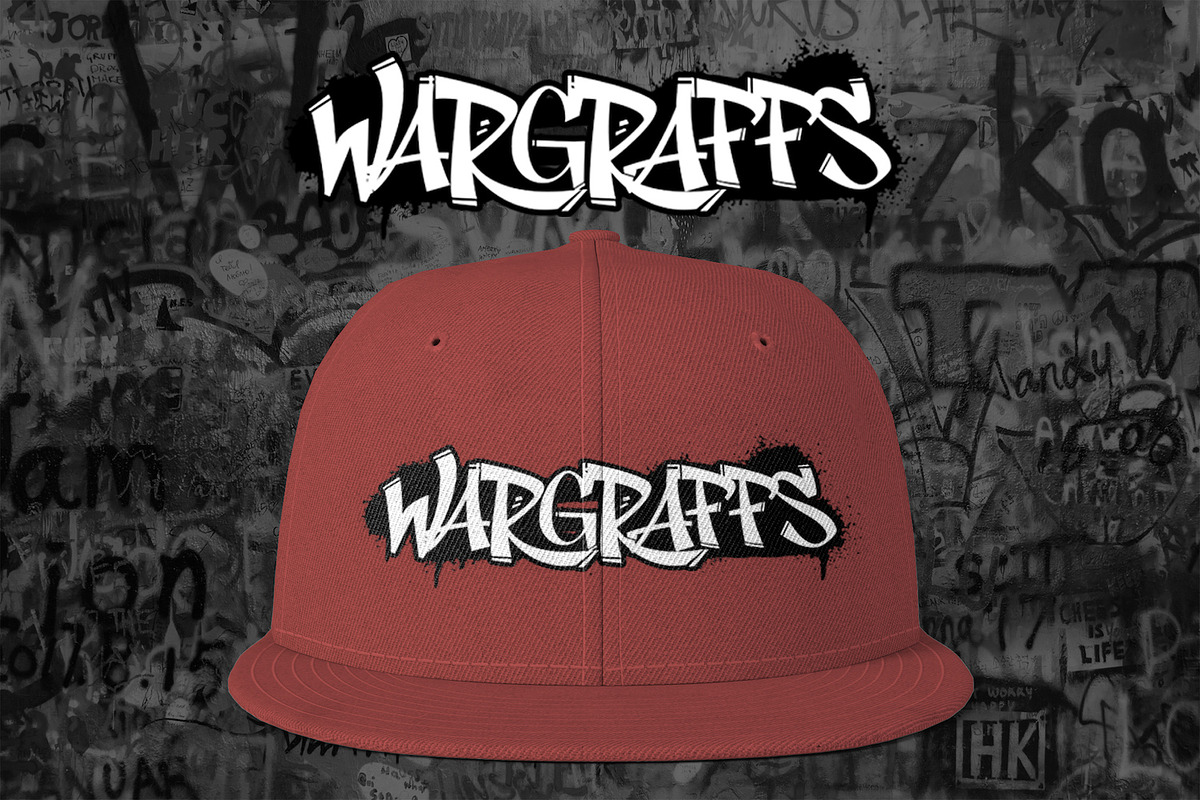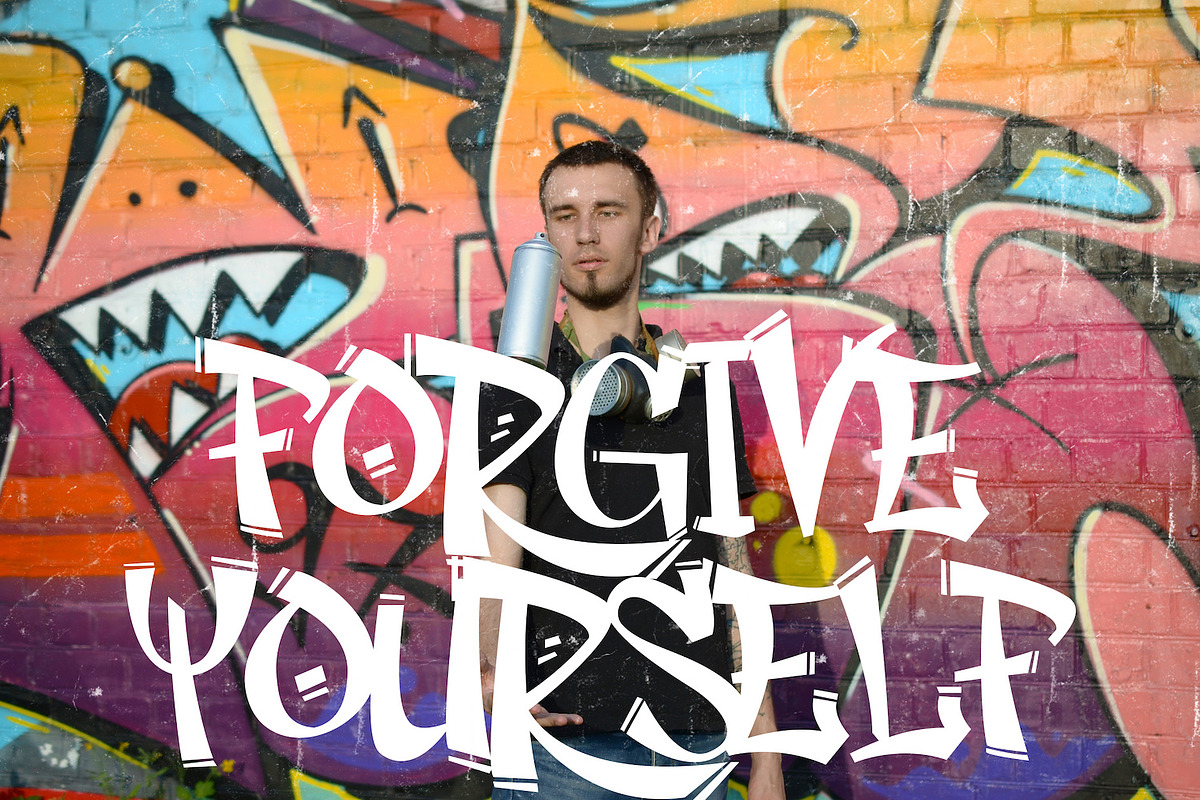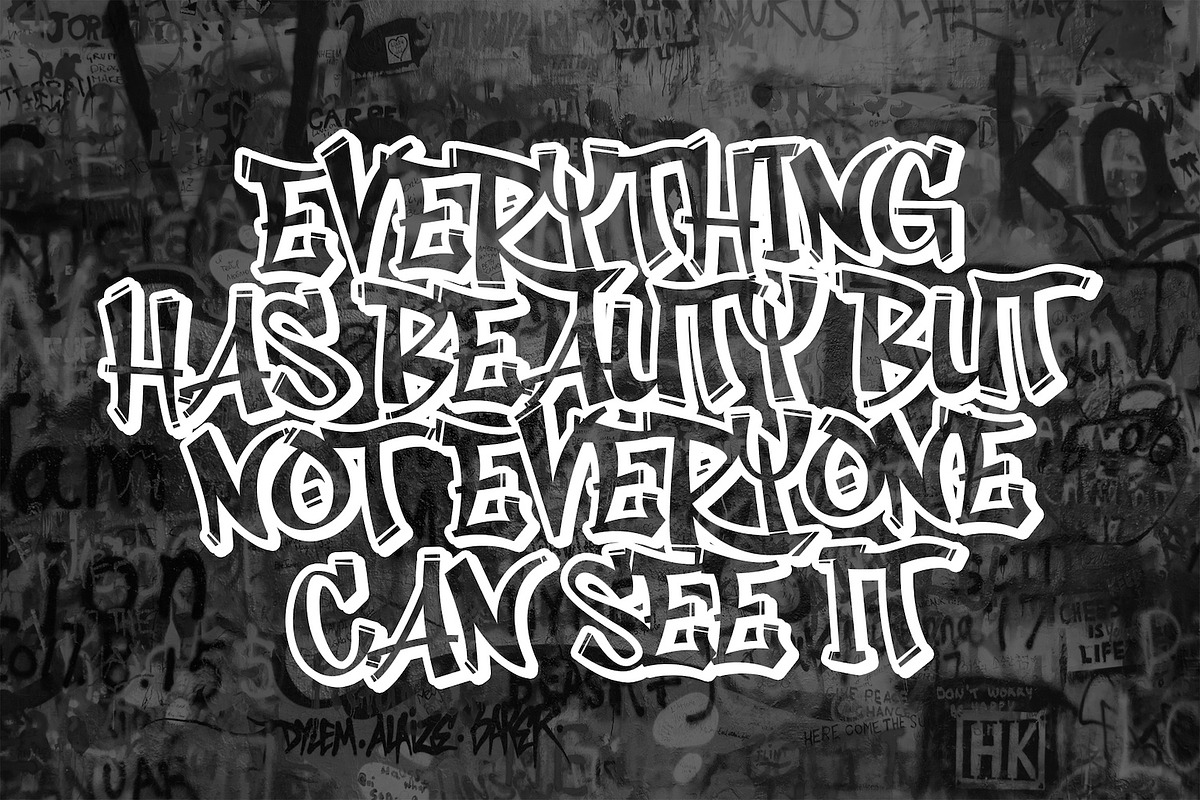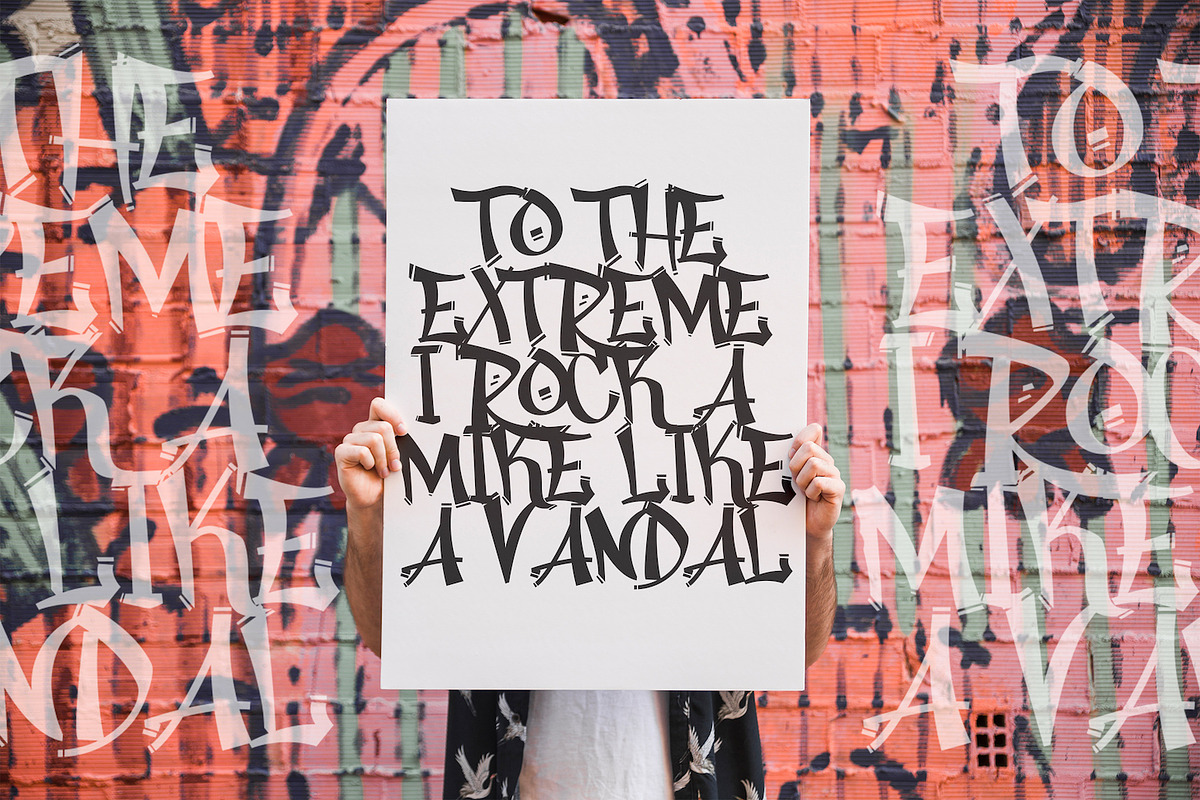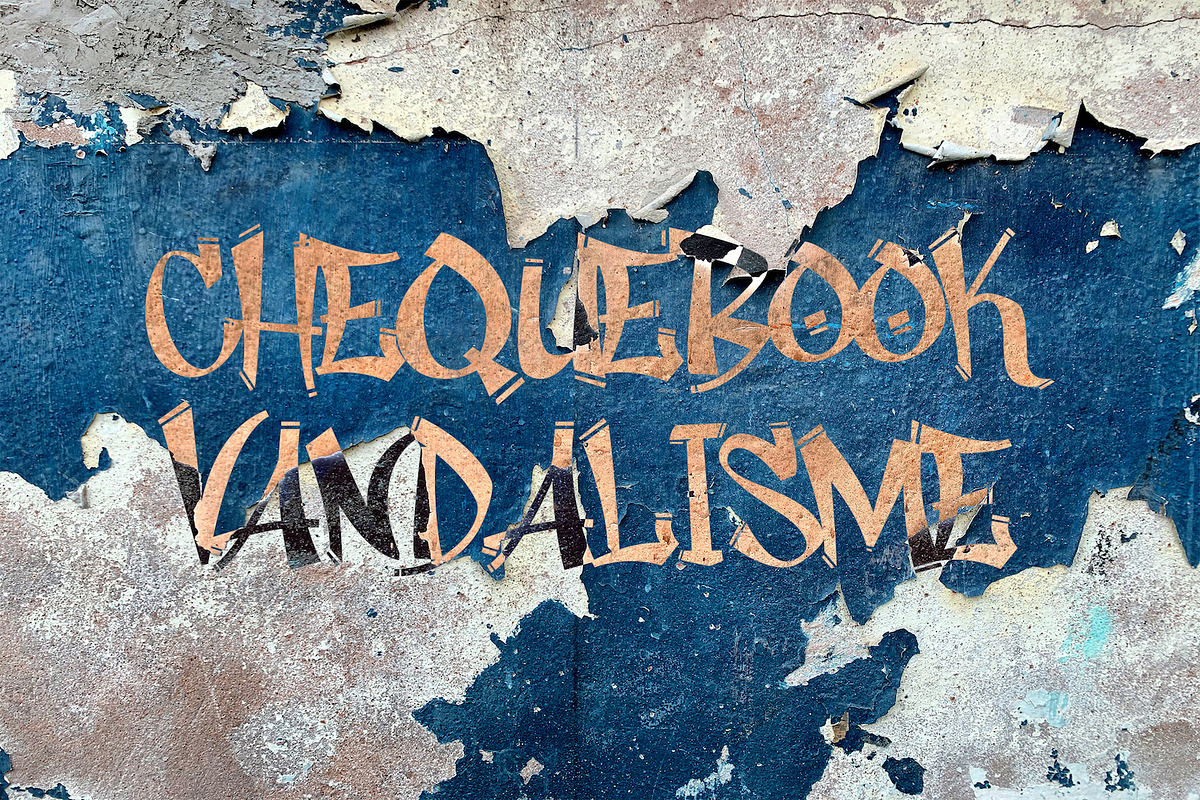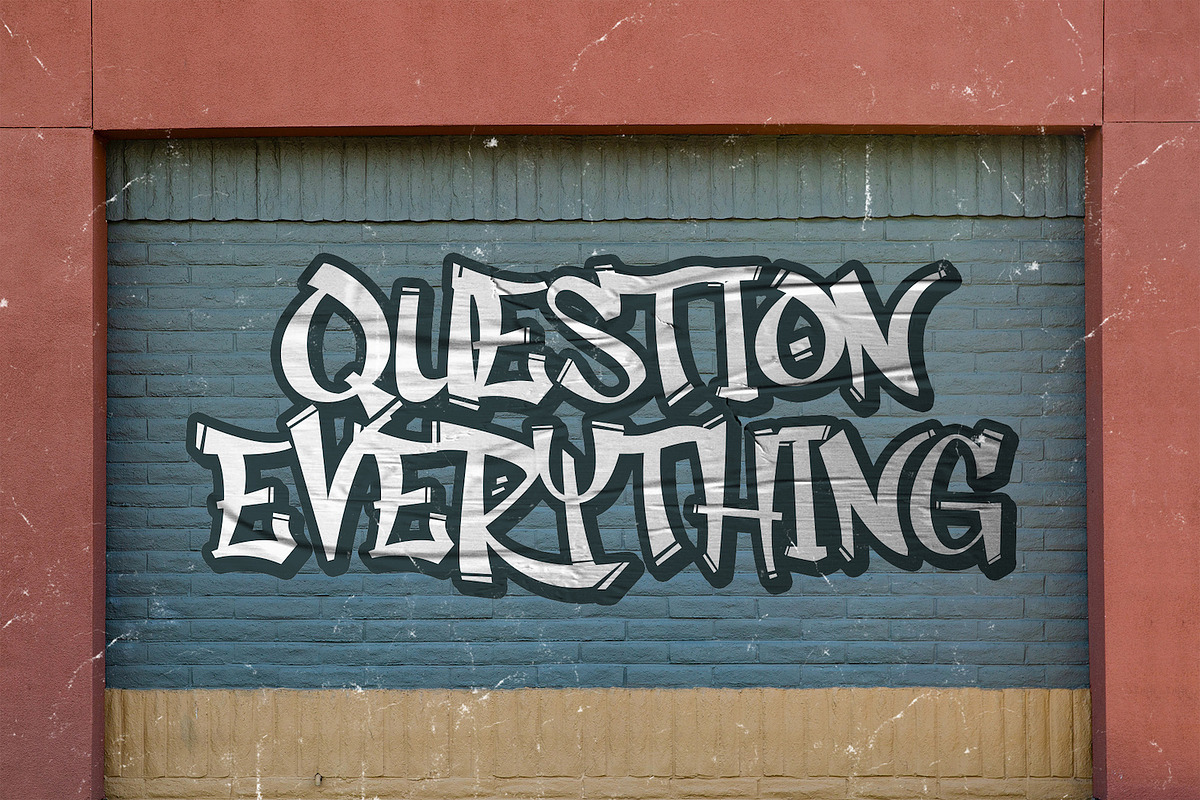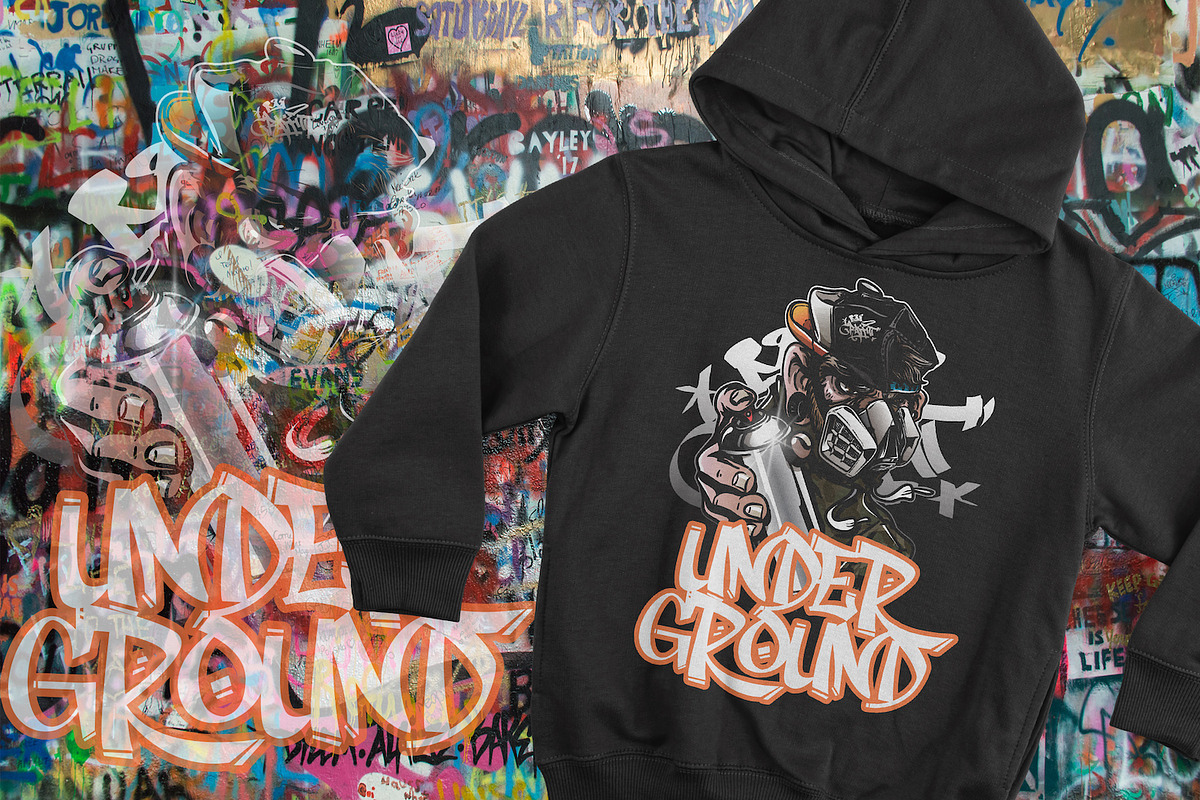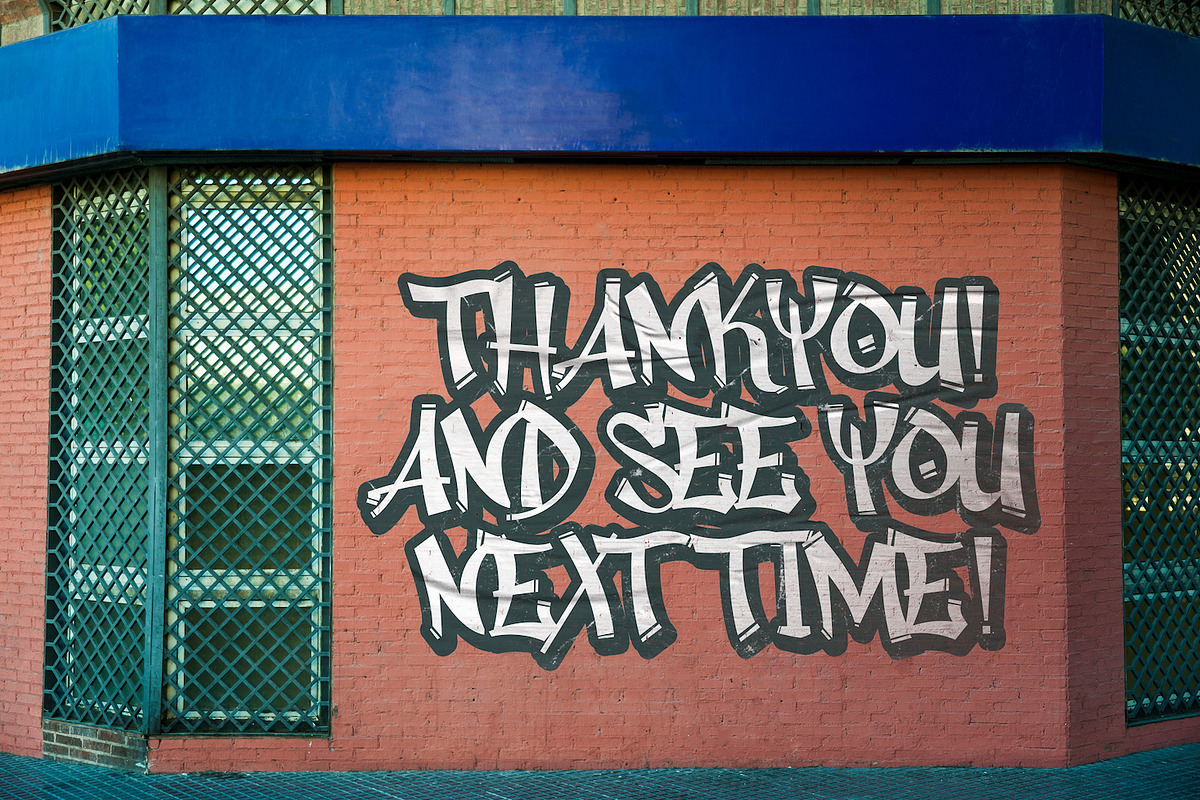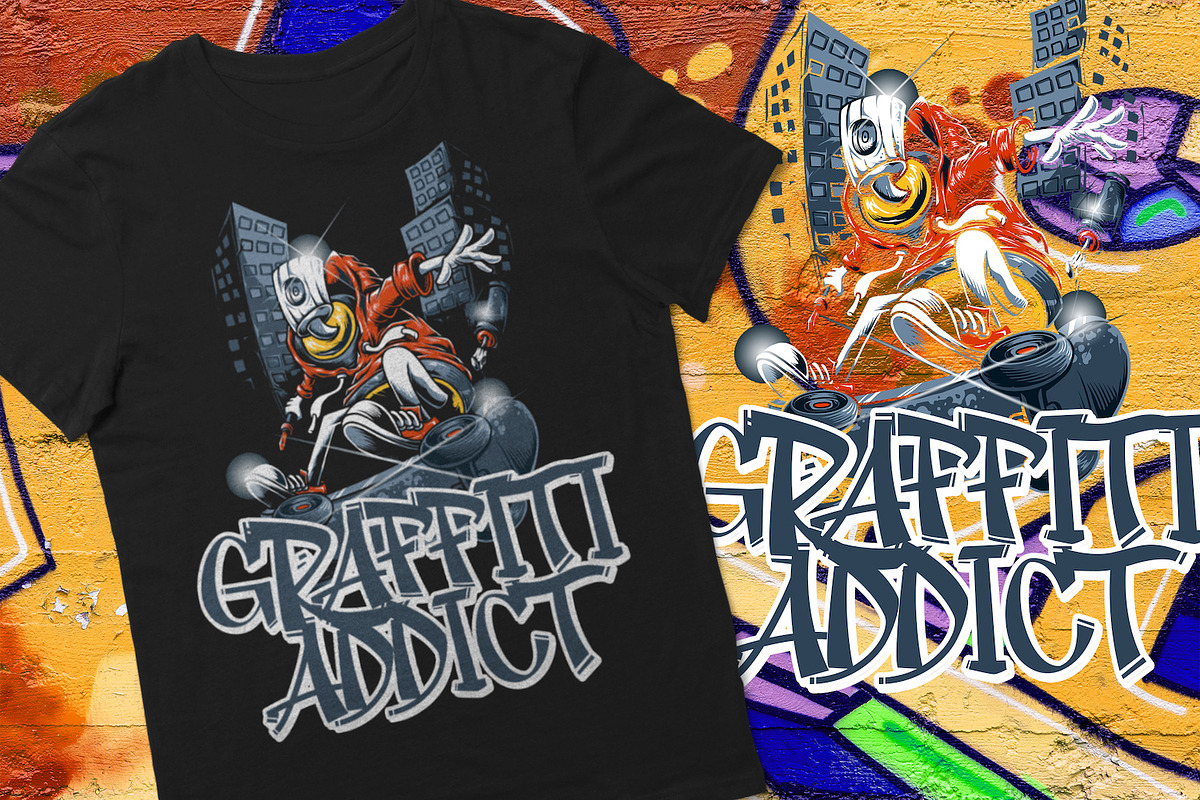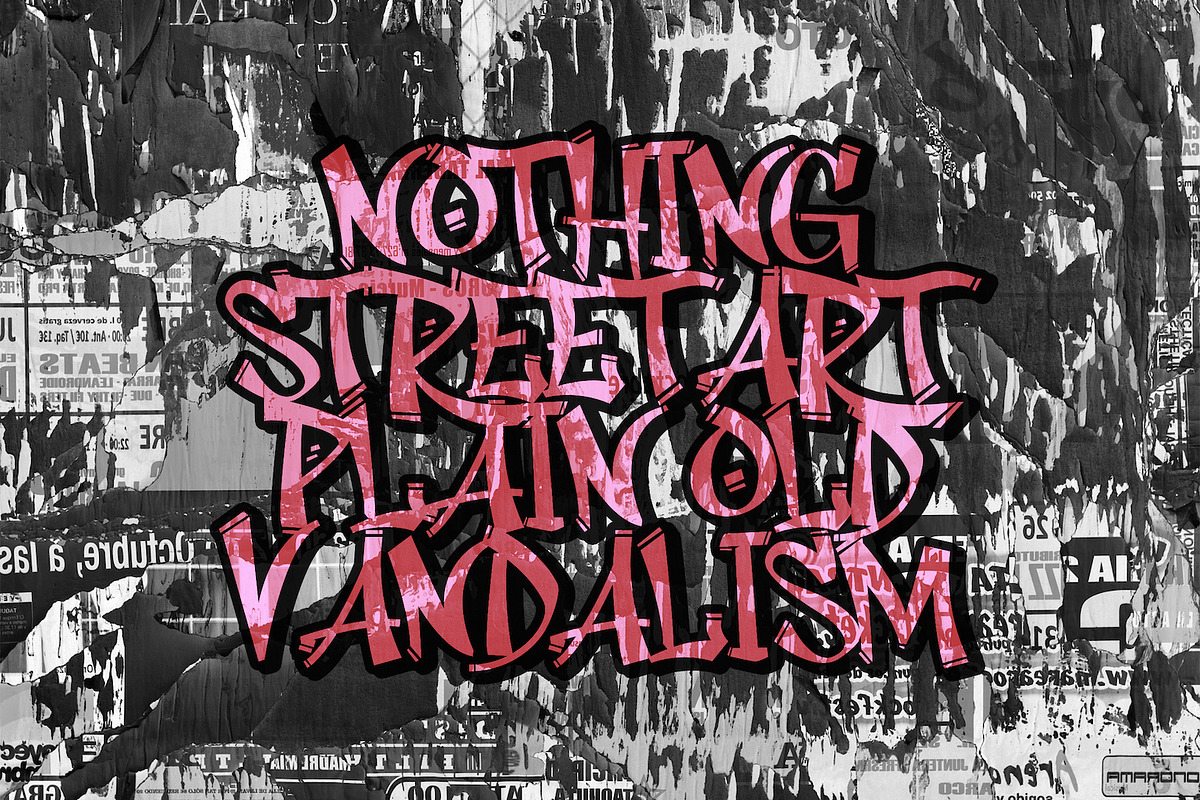
Rhieknuza - Graffiti Font
Introducing Rhieknuza - Graffiti Font
Rhieknuza it’s a quirky and awesome graffiti font. It has a unique style that makes it perfect for any creative project that requires a graffiti look!